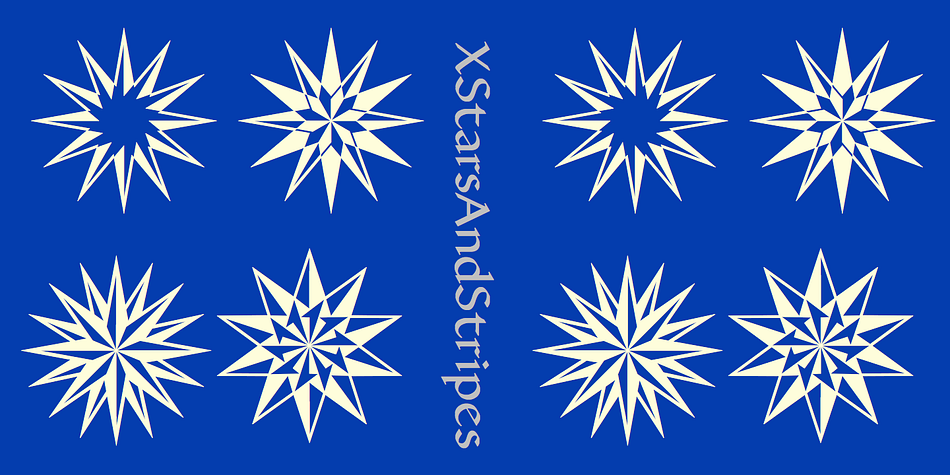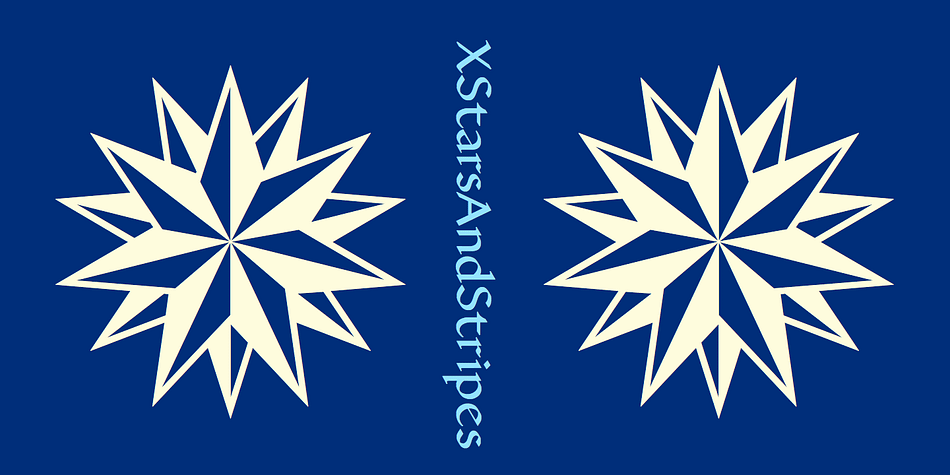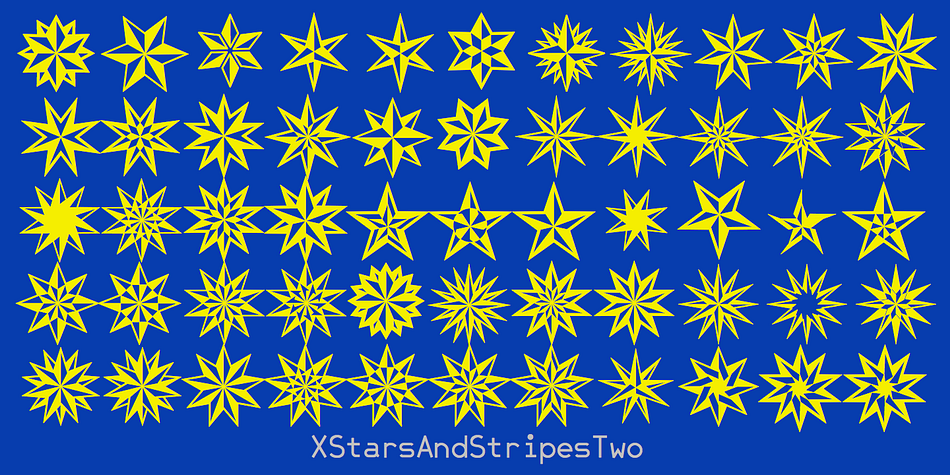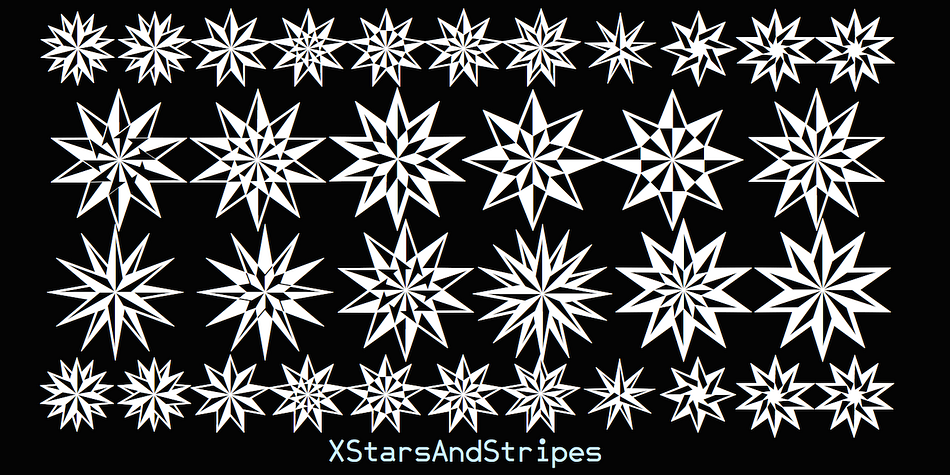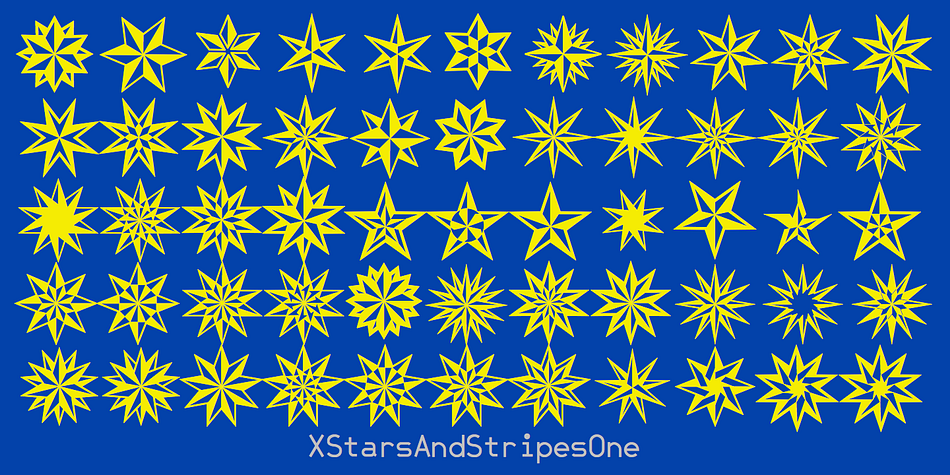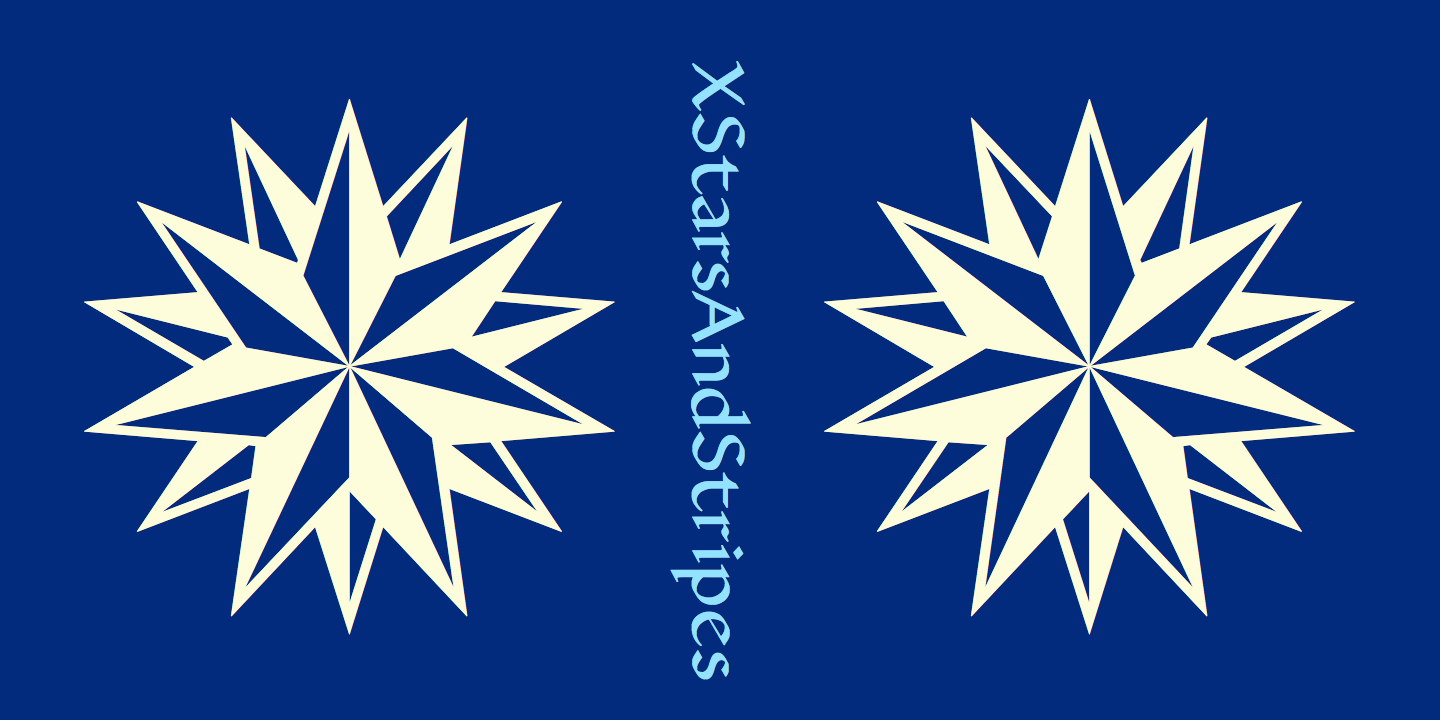
Designed by Robert Schenk, XStarsAndStripes is a dingbat font family. This typeface has two styles and was published by Ingrimayne Type.
These two typefaces contain elaborate star patterns. XSarsAndStripesOne and XStarsAndStripesTwo are mirror images of each other.